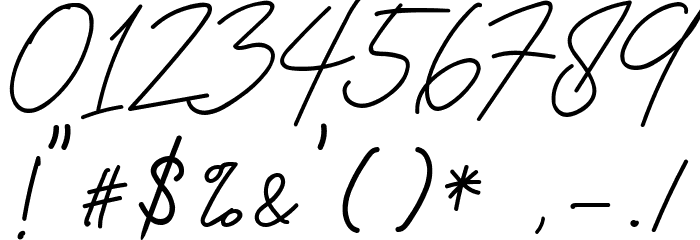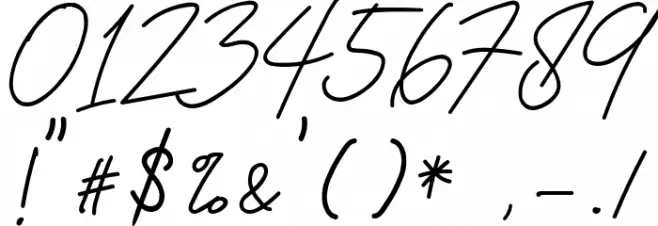
Stephani Font
Stephani Description
This elegant script font features a fluid, cursive style that mimics natural handwriting. The letters are connected, creating a seamless flow that is both sophisticated and approachable. The uppercase letters are slightly larger and more ornate, while the lowercase letters maintain a consistent, smooth appearance. The numerals and special characters are designed to match the overall aesthetic, ensuring a cohesive look across all text. The font's thin strokes and gentle curves give it a delicate and refined appearance, making it ideal for projects that require a personal touch.
| Overall Style | Elegant, Handwritten |
| Use Case | Logos, Invitations, Personal Branding |
| Proposed Projects | Ideal for wedding invitations, personal branding, greeting cards, and elegant stationery. |